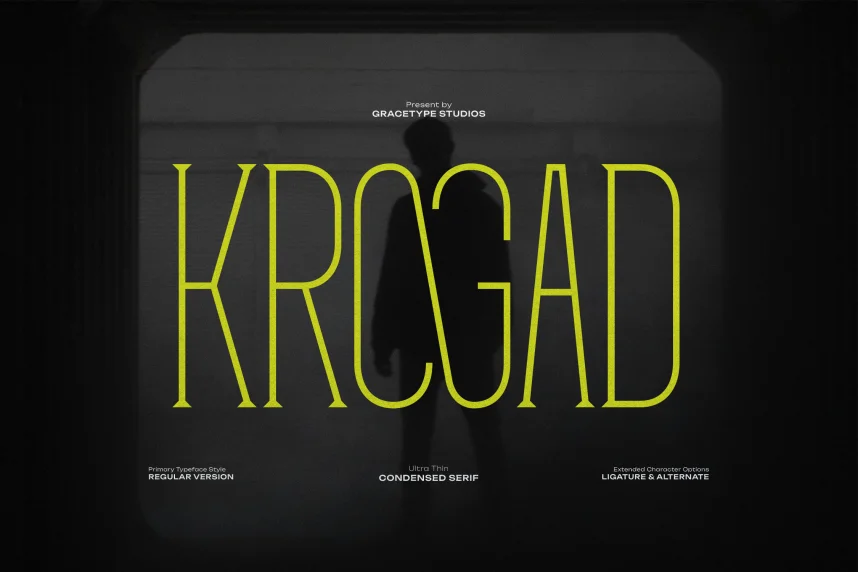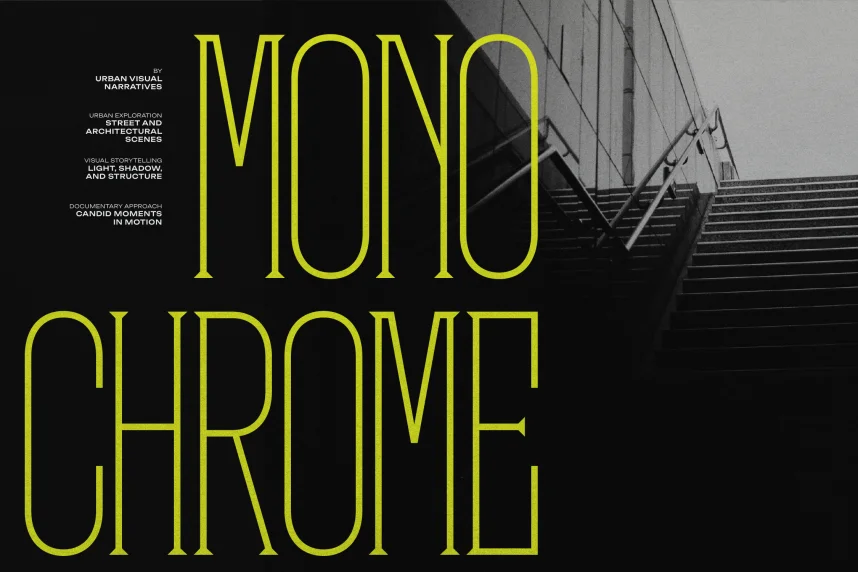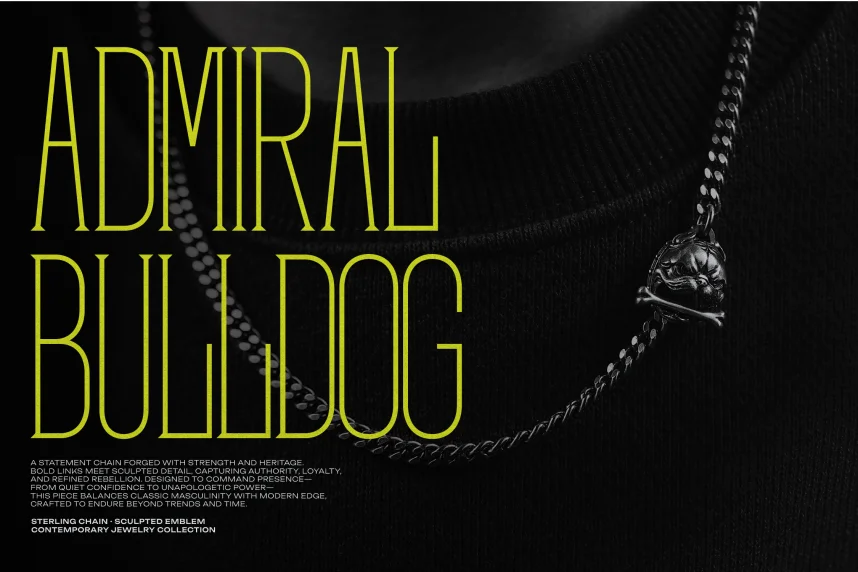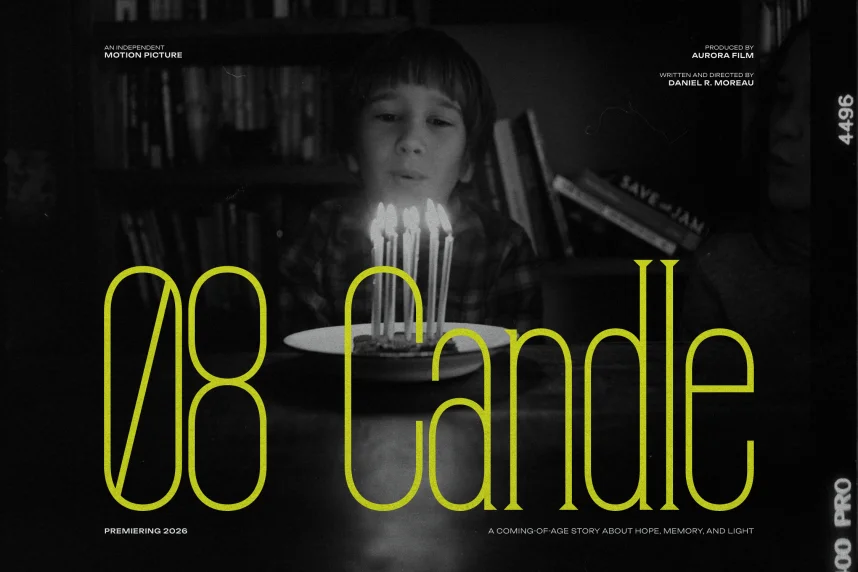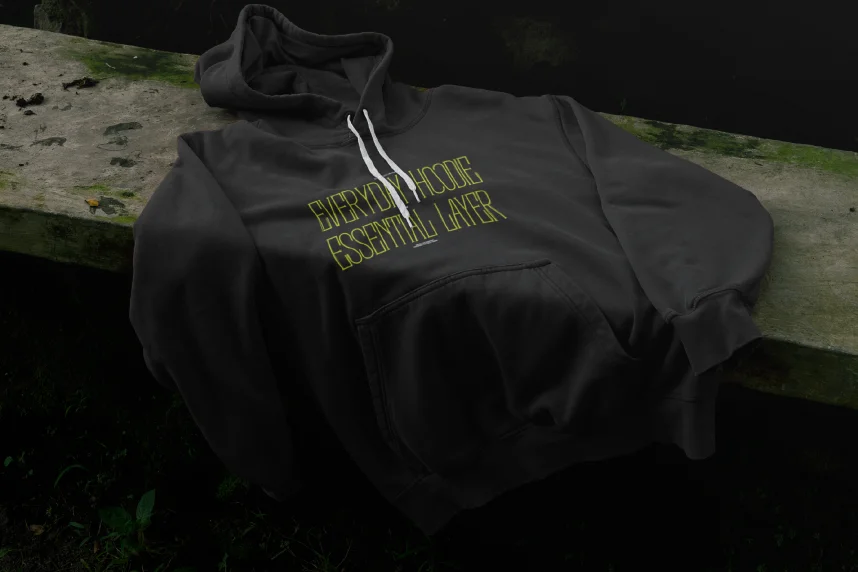
Krogad Font is a sans-serif typeface designed to solve challenges in creating strong, readable branding and headline text. Designers often need a bold display font that maintains clarity across print and digital media while ensuring consistency in logos and UI elements.
Krogad features geometric letterforms with even stroke weights, slightly condensed proportions, and open counters. The clean, modern structure emphasizes legibility at large sizes while keeping minimal stylistic distractions. Its balance of width and height supports both display headings and short tagline text.